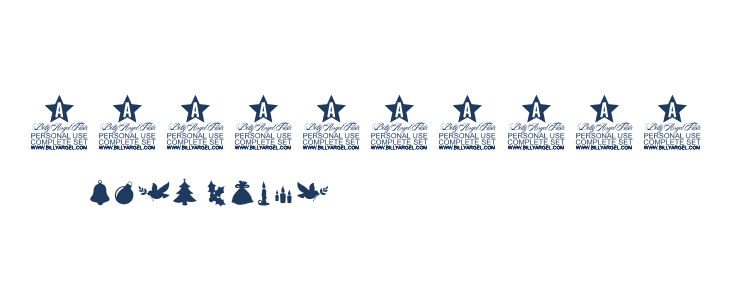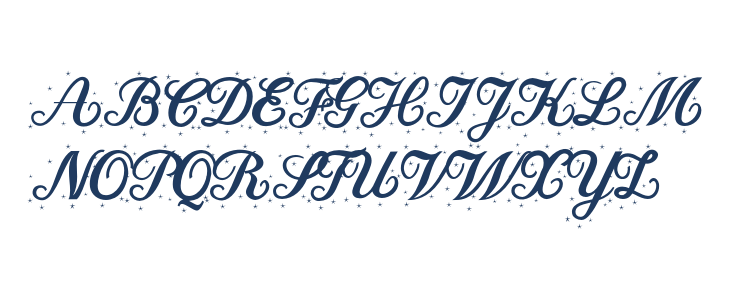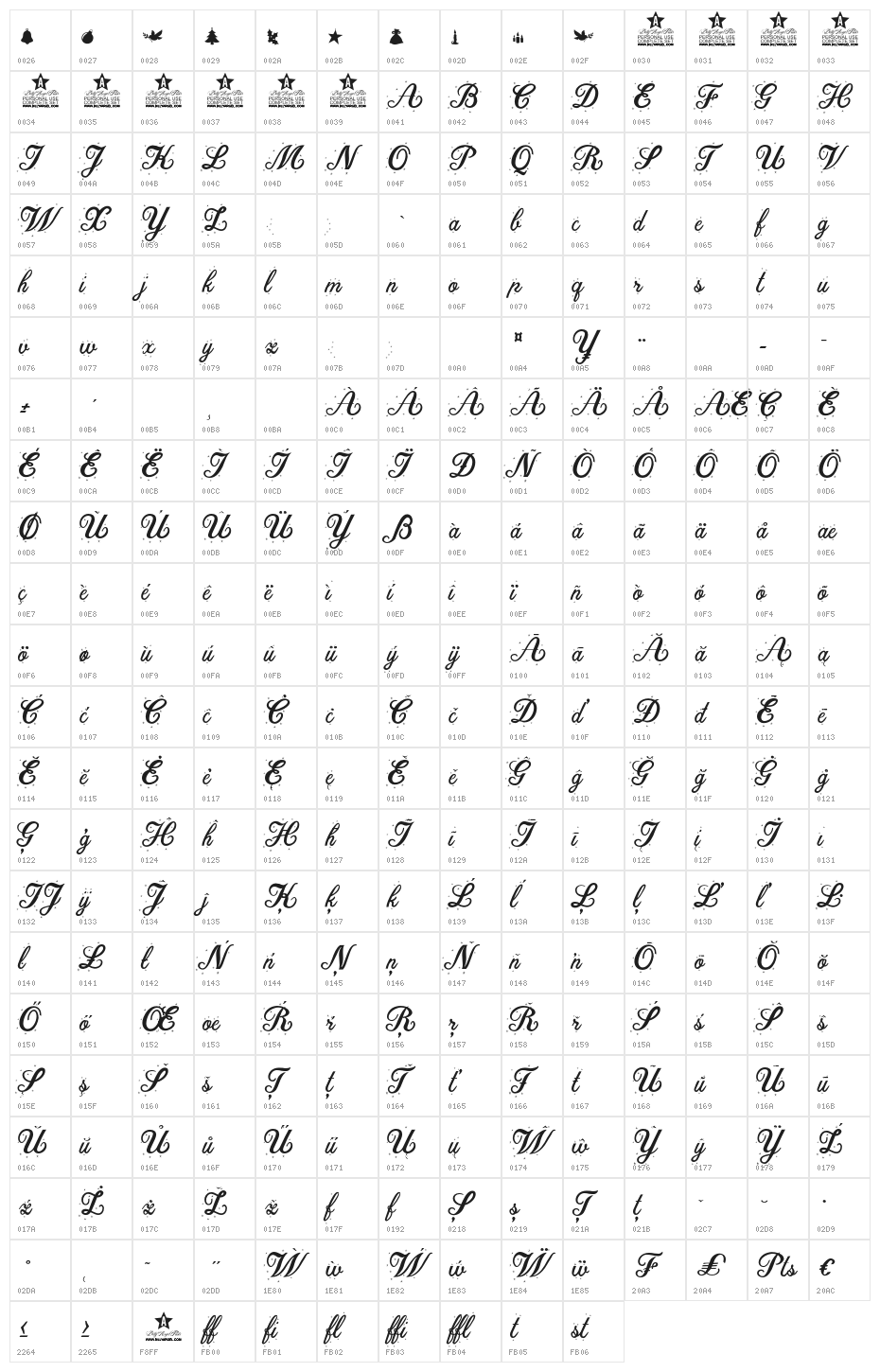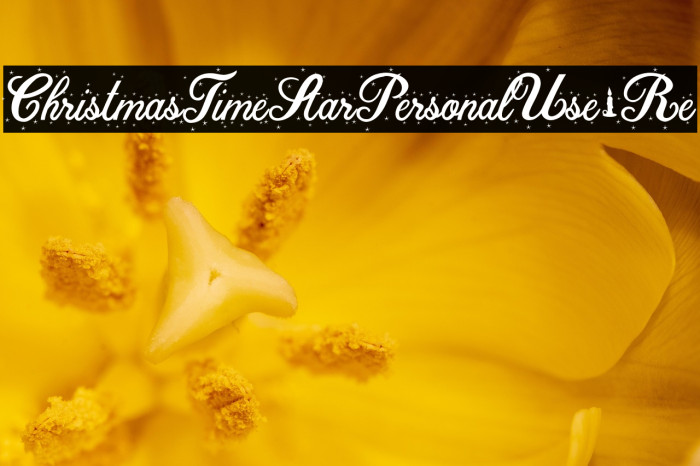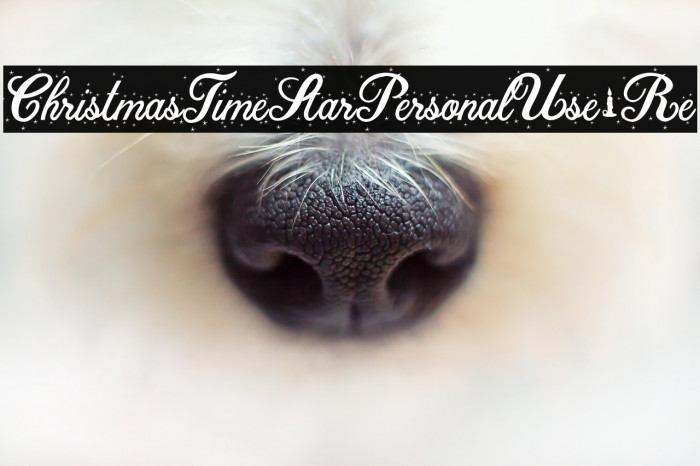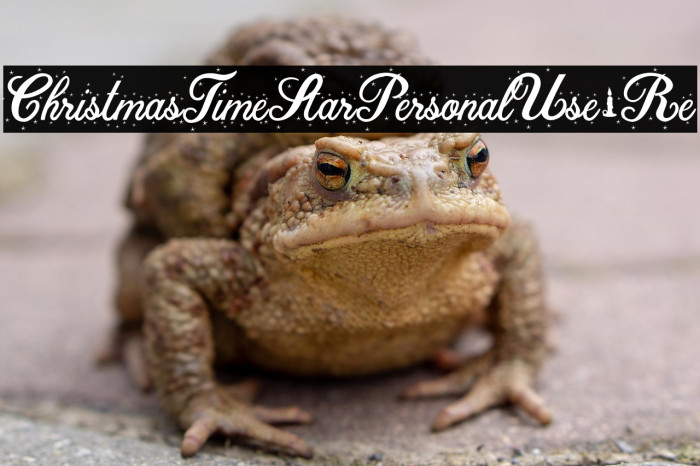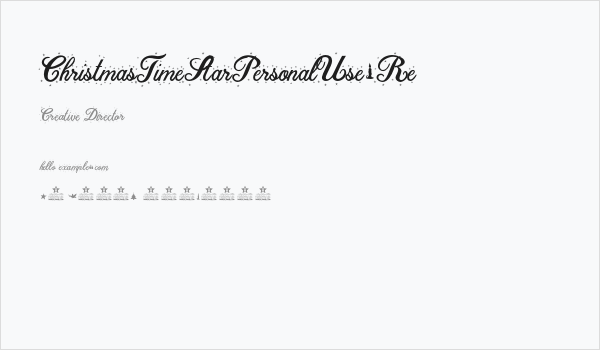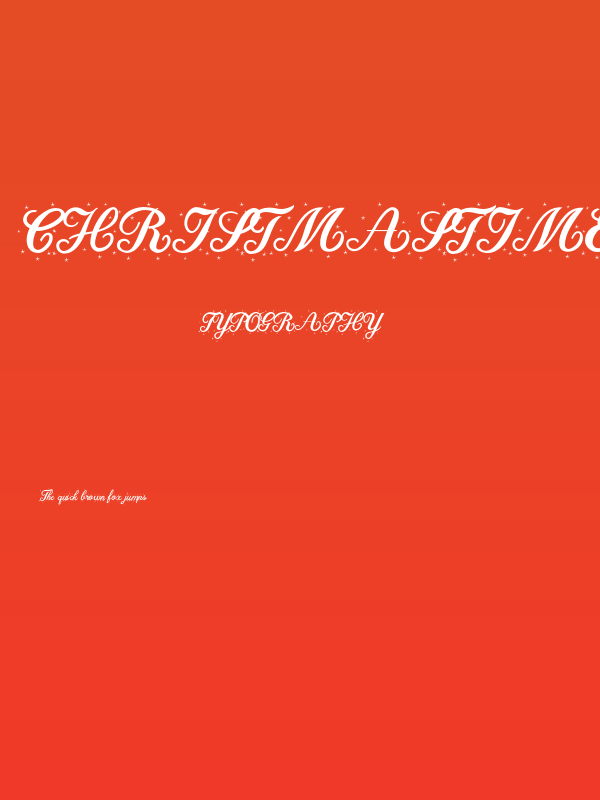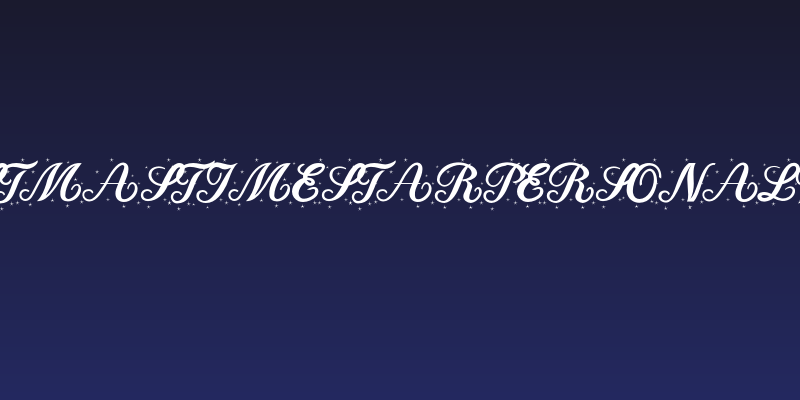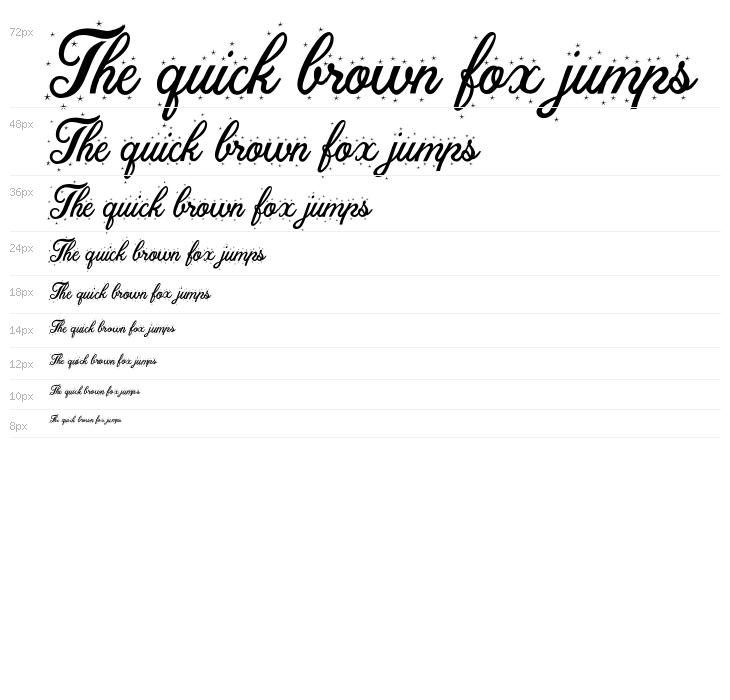
ChristmasTimeStarPersonalUse-Re Font
ChristmasTimeStarPersonalUse-Re Description
A decorative script font with swirling, cursive letterforms adorned with small star accents, evoking a festive and whimsical holiday feel. The uppercase letters are highly embellished, while the lowercase maintains a smooth, flowing style. Includes themed dingbats such as bells, ornaments, trees, and candles.
| Overall Style | Decorative, Festive, Whimsical |
| Use Case | Headlines, Greeting cards, Decorative text, Holiday branding |
| Proposed Projects | Holiday cards, festive invitations, seasonal posters, decorative signage, event branding. |